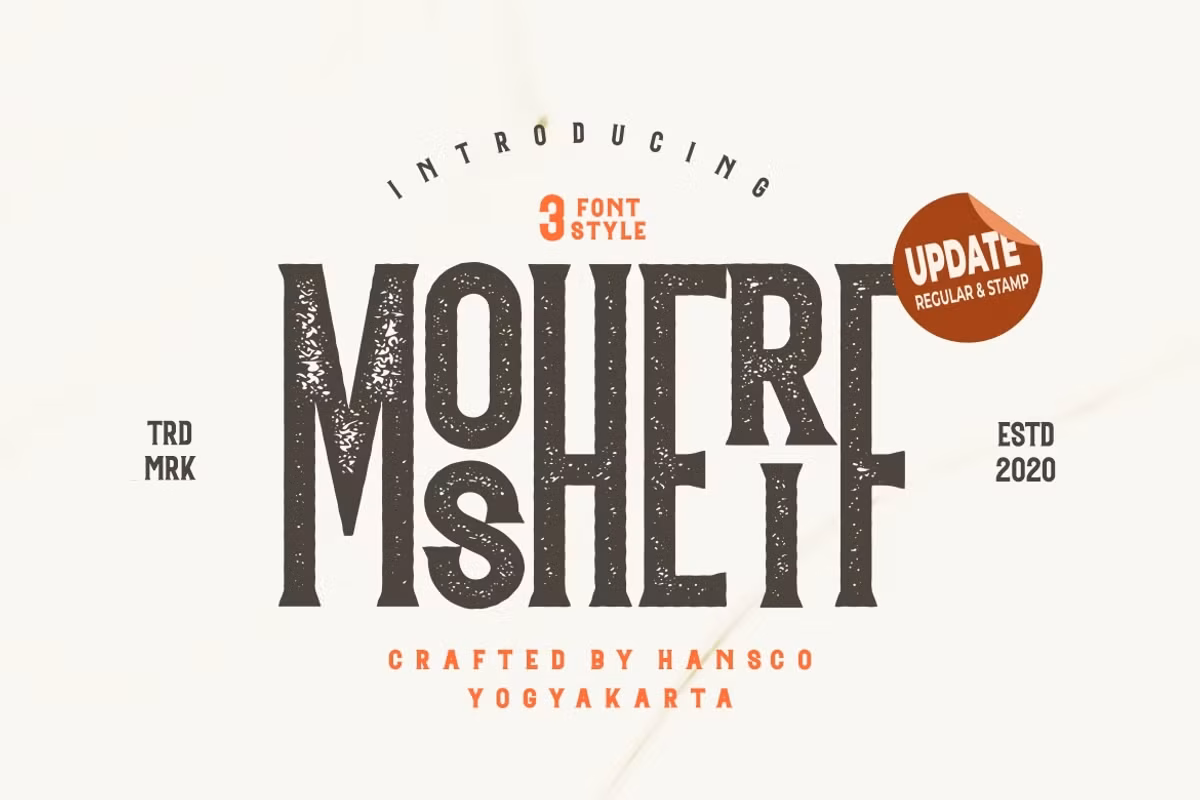
Mosherif - Vintage Serif Font Free Download
Classic, bold, and rich in vintage character, Mosherif - Vintage Serif Font Free Download is a serif typeface designed to bring old-school charm and timeless elegance to your projects. Perfect for logos, posters, whiskey labels, apparel, packaging, and editorial designs, Mosherif captures the essence of heritage typography with a modern twist.
With strong serifs, balanced spacing, and subtle vintage detailing, Mosherif is both impactful and stylish. It’s ideal for designers looking to create a bold impression while maintaining a refined, historical vibe.